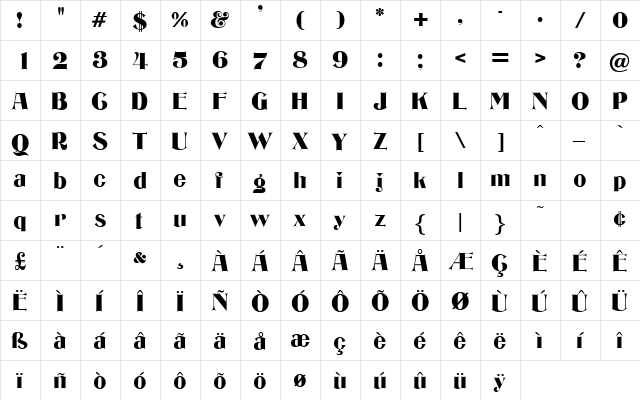
Edifice Regular
Design Context for Edifice Typeface
Edifice takes a measured approach to typography — its balanced proportions and neutral character make it a reliable workhorse for both digital and print work.
Pro Tip: Use Edifice in both headline and body roles to test its range before committing to a single application.